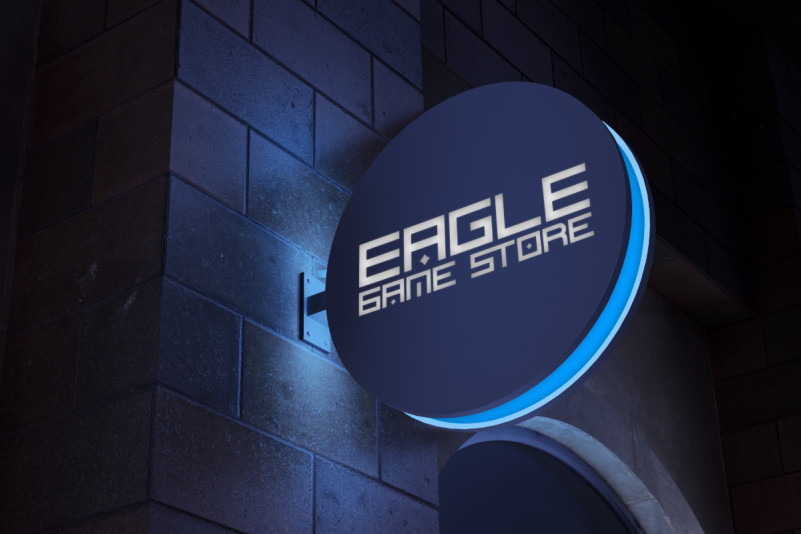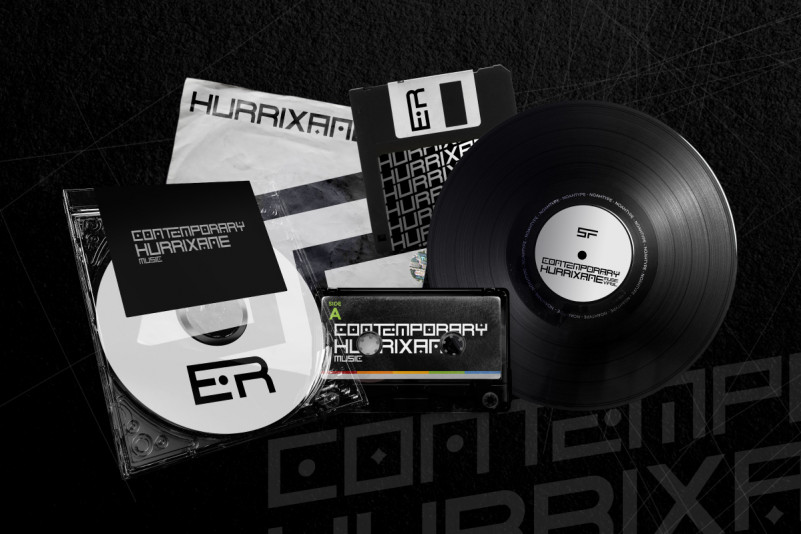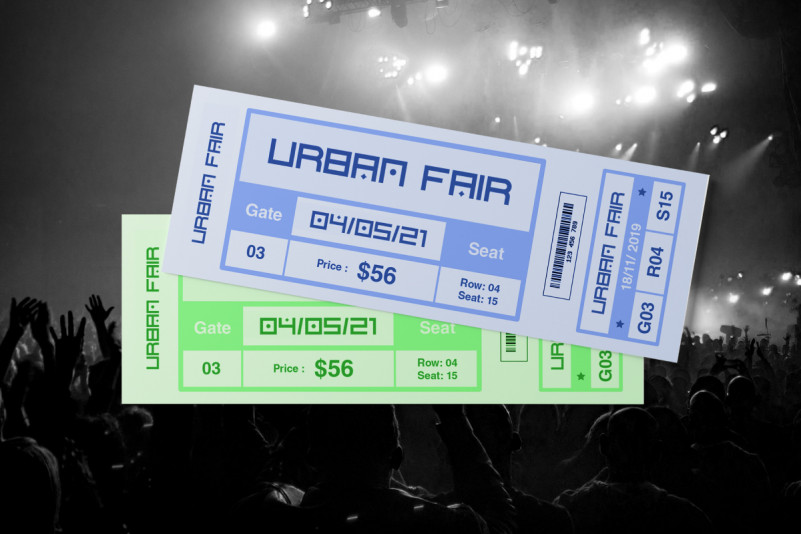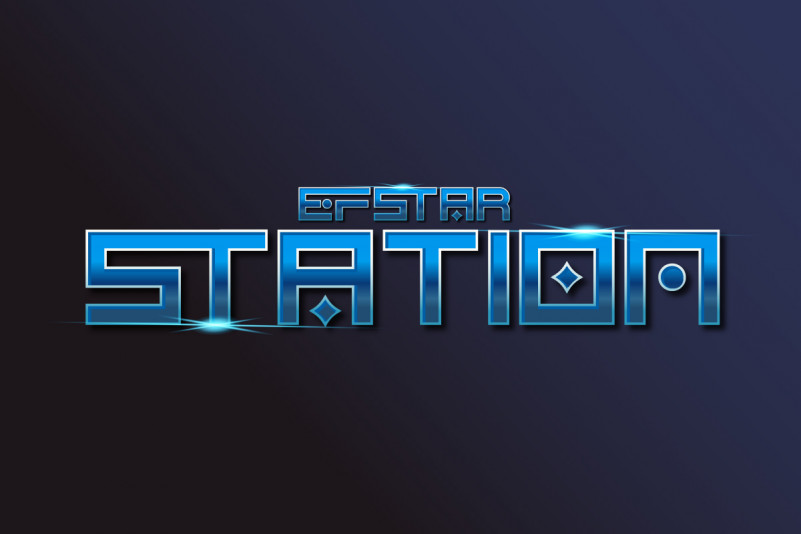
Staroff Font
Staroff Display Font
It’s a modern sans serif display font with futuristic style characters. It has a unique style that will bring the super modern and up to date to the design. It will works for games, technology, events, spaceship and any modern things. Staroff is inspired from several spaceship company. The font includes full set of Uppercase and Lowercase Basic Characters, Numerals and Punctuation. The font is perfect for many projects including branding, promotions, headlines, logos, poster, tittle, products, etc.